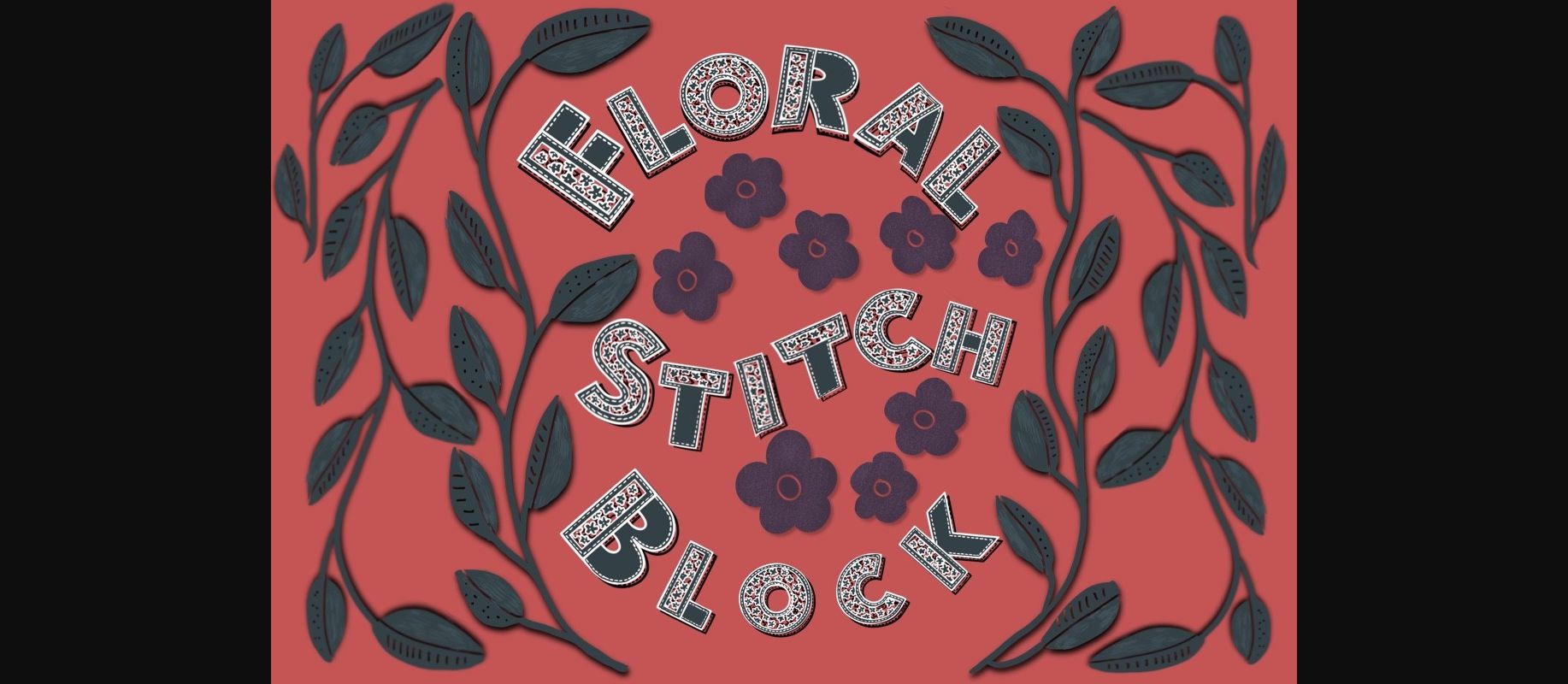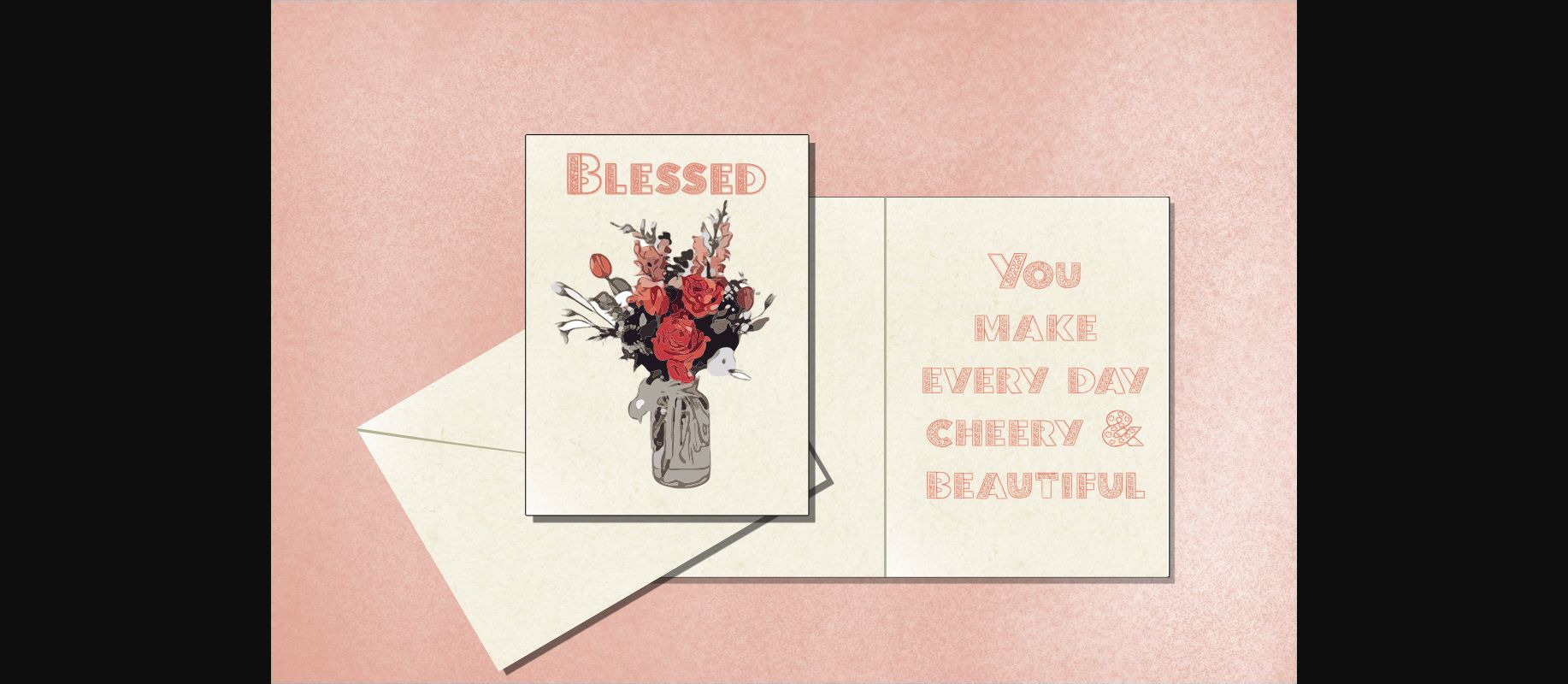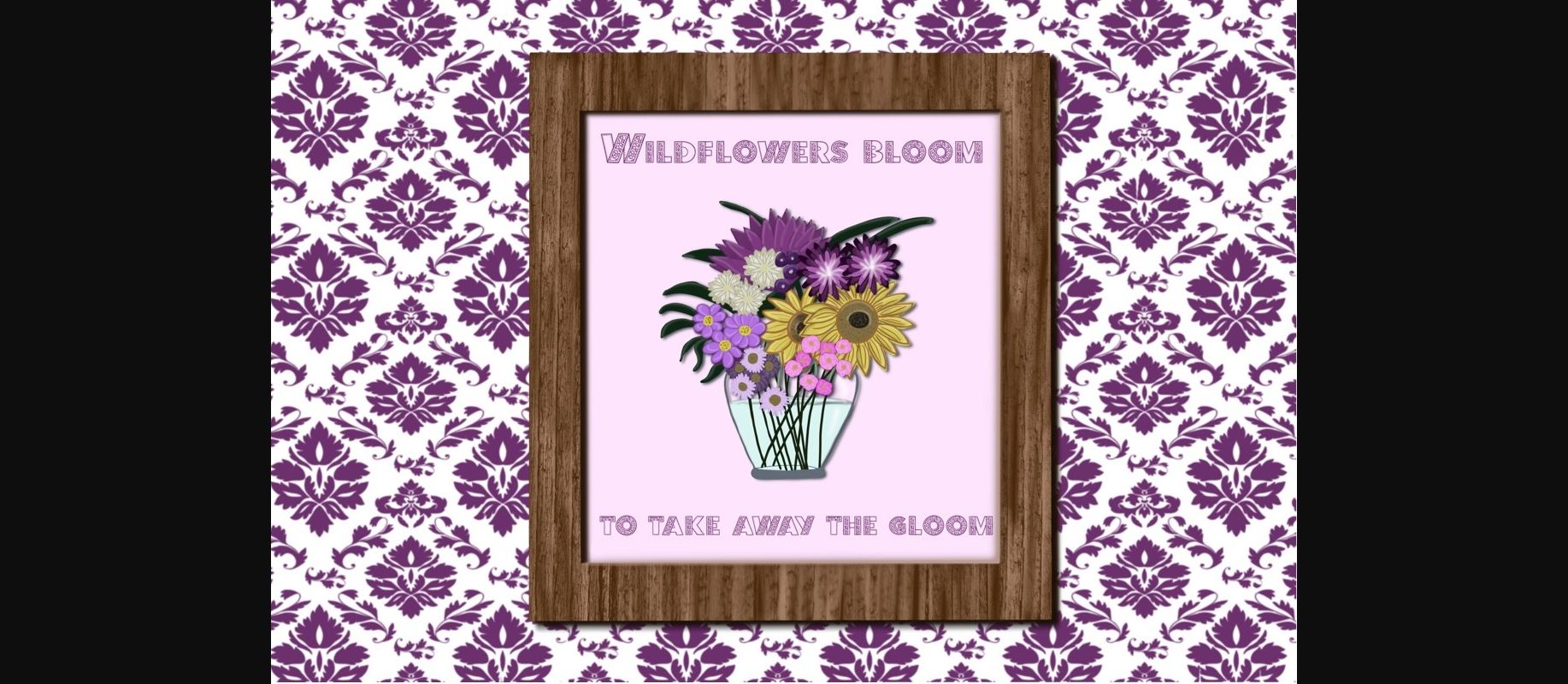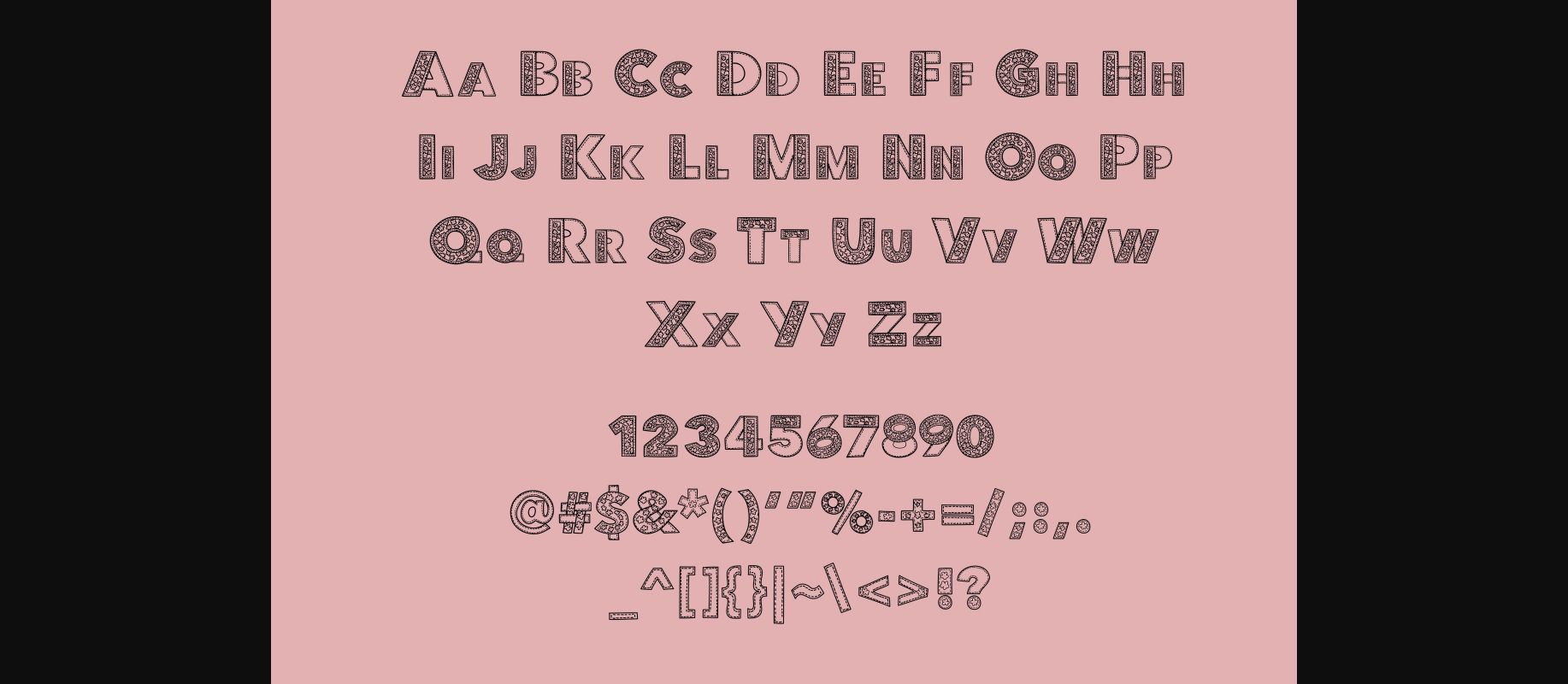
Floral Stitch Block Font
About Floral Stitch Block Font
Floral Stitch Block is an incredibly cool, dreamy and genuine decorative font. Whimsical and a beautiful, this font will brighten up each of your designs. Add it confidently to your projects, and you will love the results.